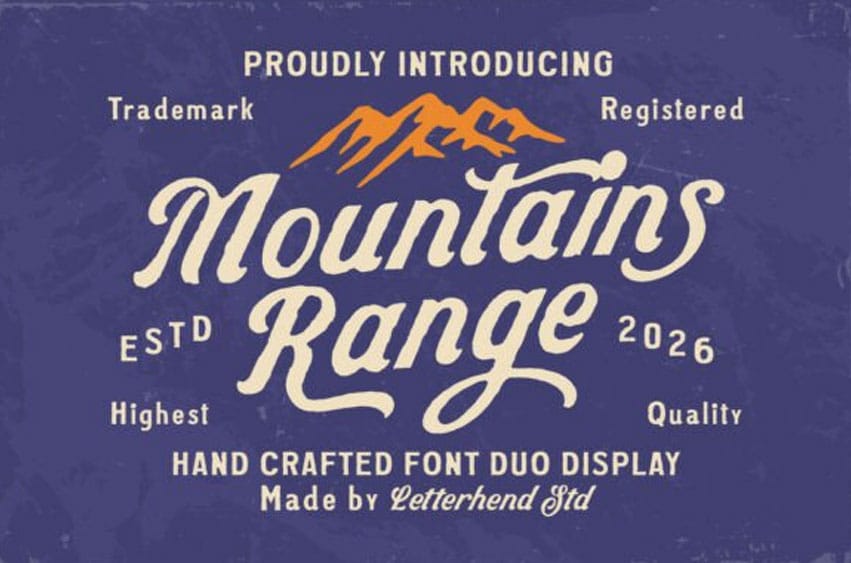
Mountains Range Font Embark on a creative journey with the Mountains Range font, a handcrafted display duo that captures the rugged beauty and adventurous spirit of the great outdoors.
This masterfully balanced Mountains Range typeface combines a fluid, adventurous script with a sturdy, classic sans-serif to provide a complete branding solution in one package.
The script portion features organic, flowing terminals that mimic the peaks and valleys of a horizon line, while the secondary sans-serif provides a reliable, “trademark” aesthetic for subheaders and fine print. It is the definitive choice for brands that want to evoke a sense of heritage, exploration, and high-quality craftsmanship.
The Mountains Range font is the perfect companion for outdoor equipment branding, vintage-style travel posters, and craft brewery labels. Its weathered, hand-drawn texture pairs exquisitely with natural photography, distressed overlays, and earthy color palettes. Use the script of the Mountains Range typeface to create iconic main logos, then ground your design with the clean, bold sans-serif for a professional, “Established 2026” look.
Whether you are designing for a national park gift shop, a mountain resort, or a rugged apparel line, this duo brings an authentic, handcrafted soul to every layout. It’s not just a set of letters; it’s an invitation to explore.